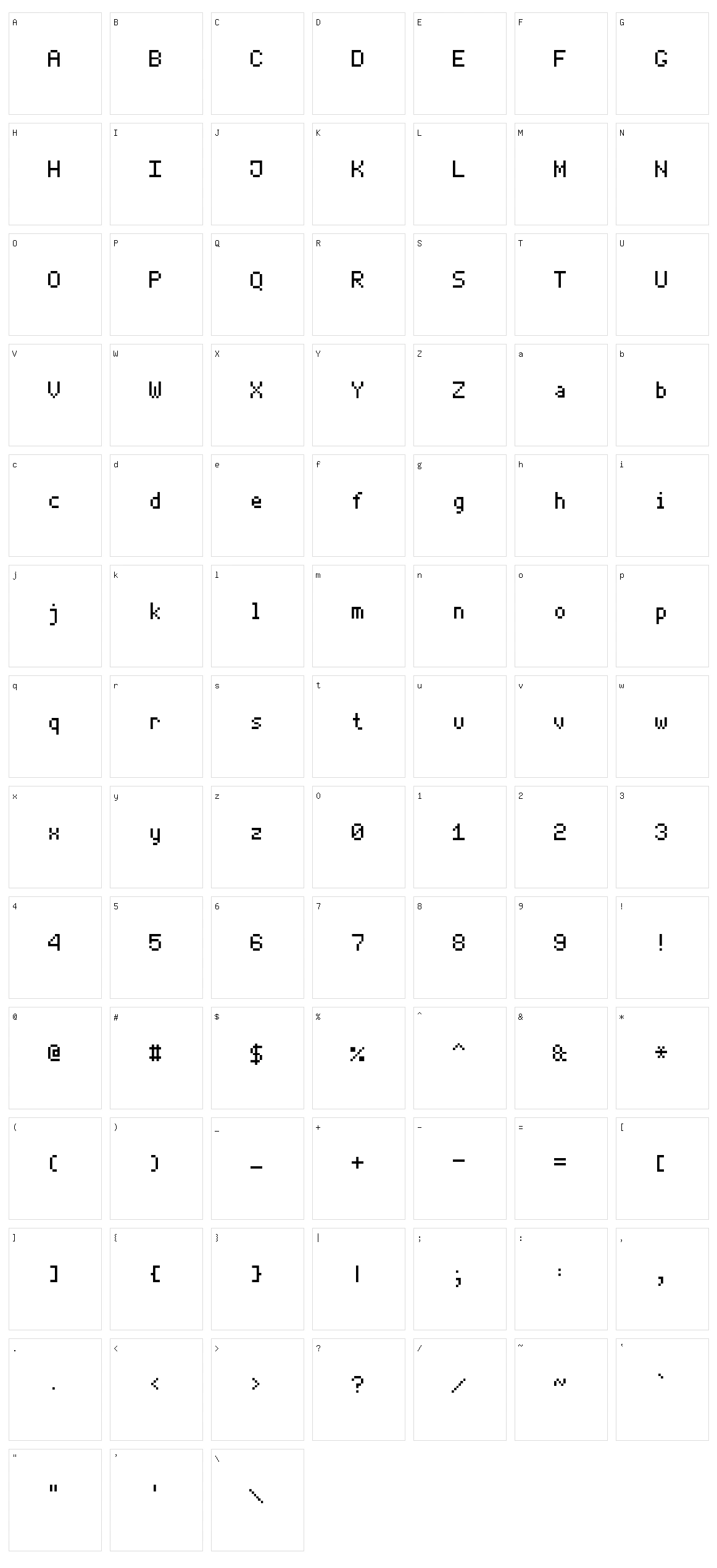
Thin Pixel-7
Designed by: Style-7
Classic small pixel font. Size is 5*7 pixels. Latin and Cyrillic code pages are supported.
Thin Pixel-7 Character Set